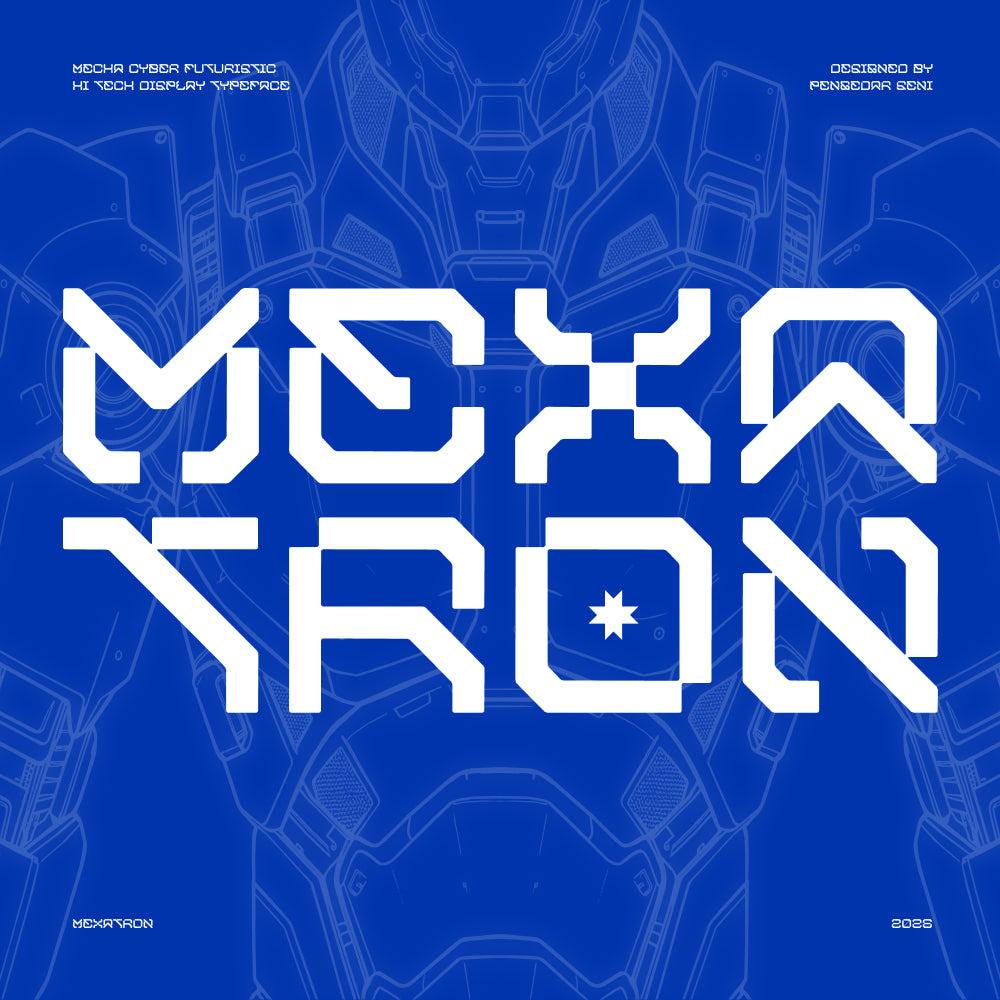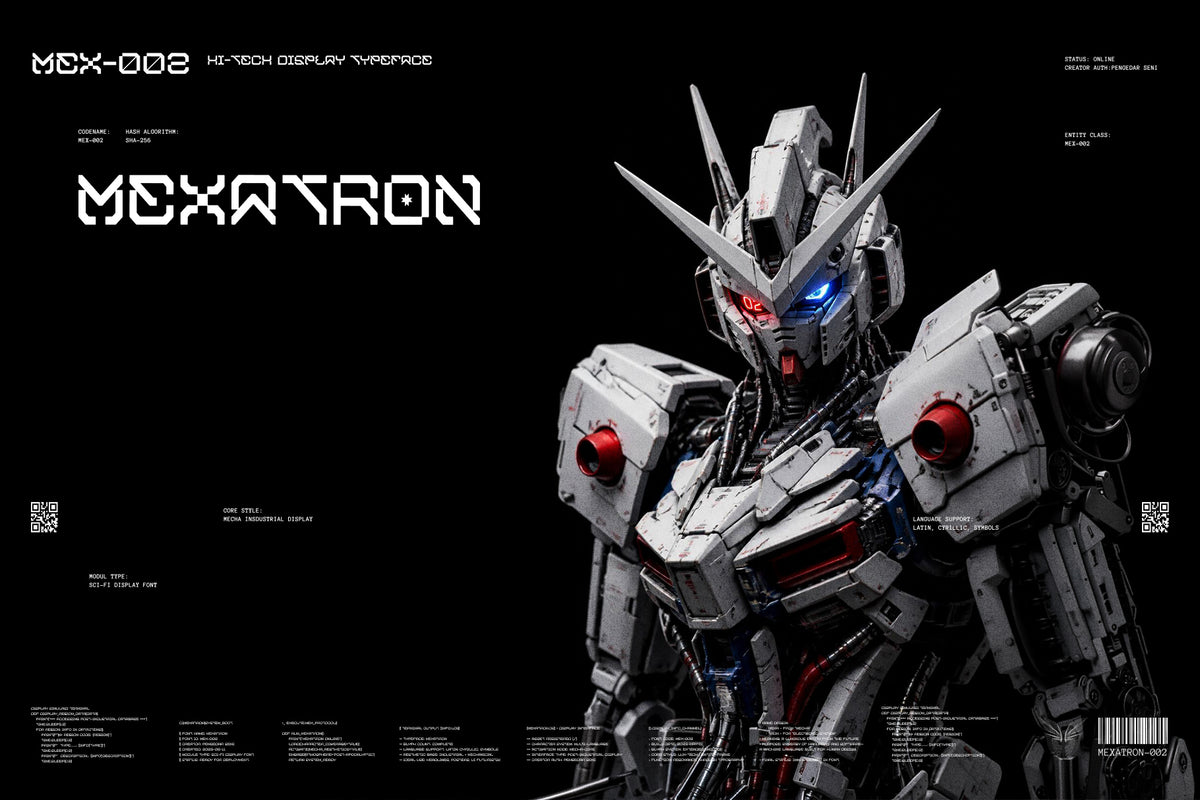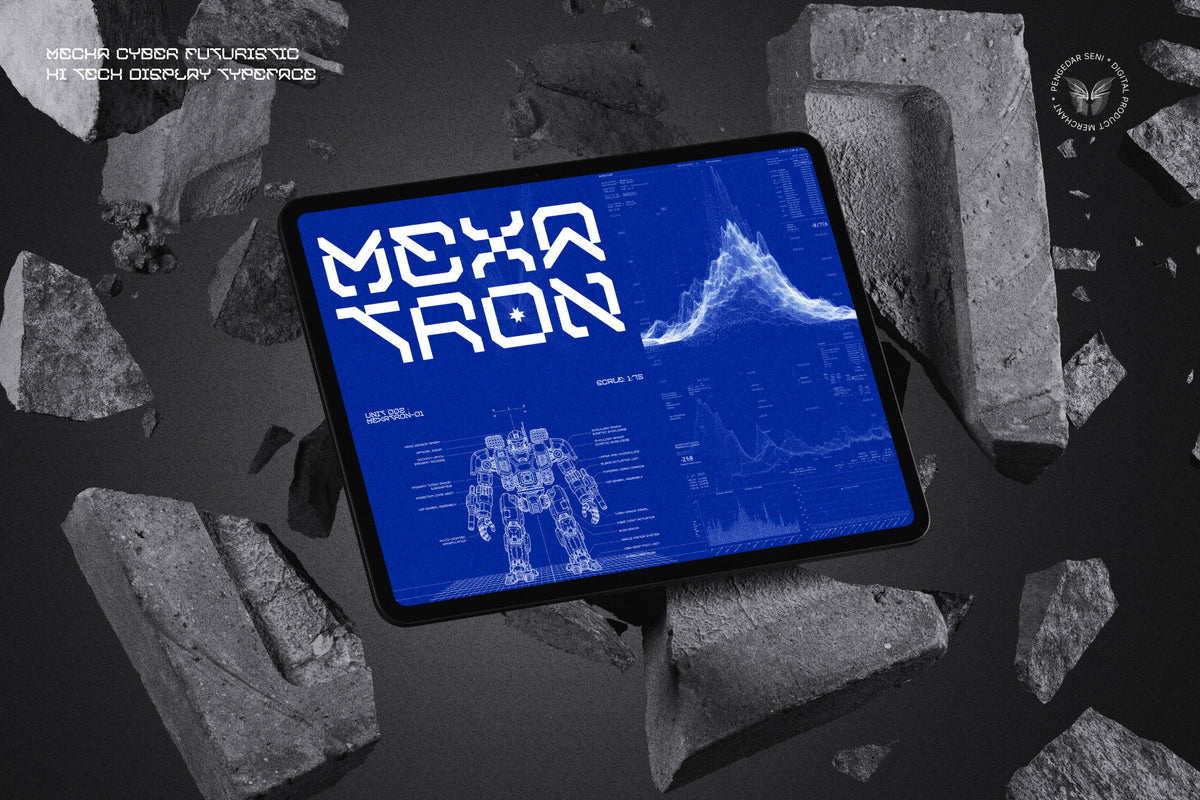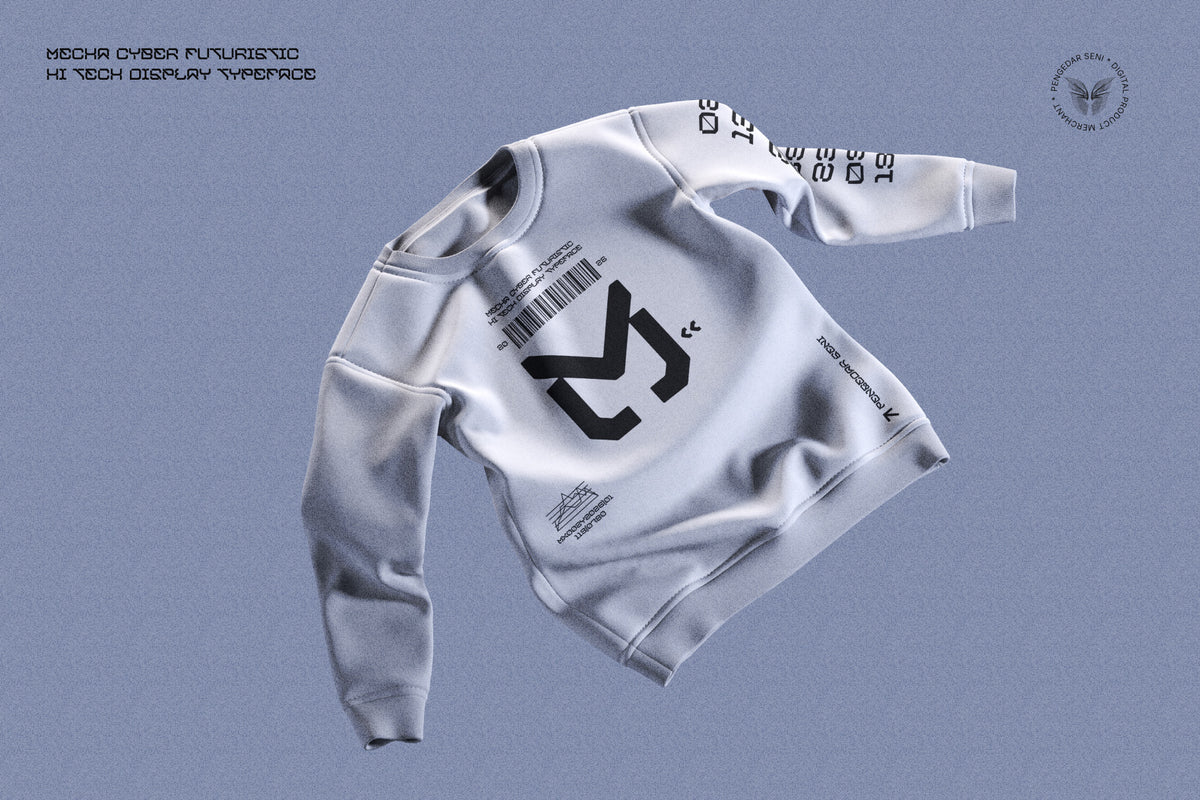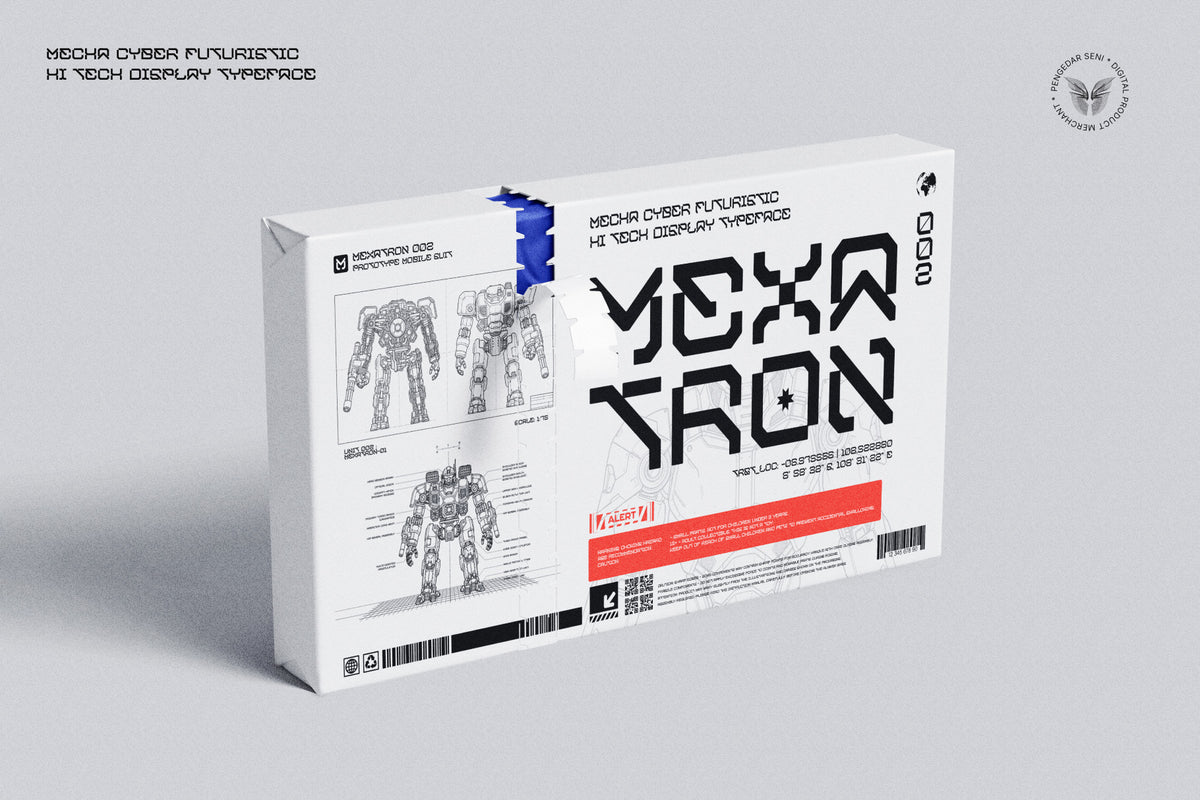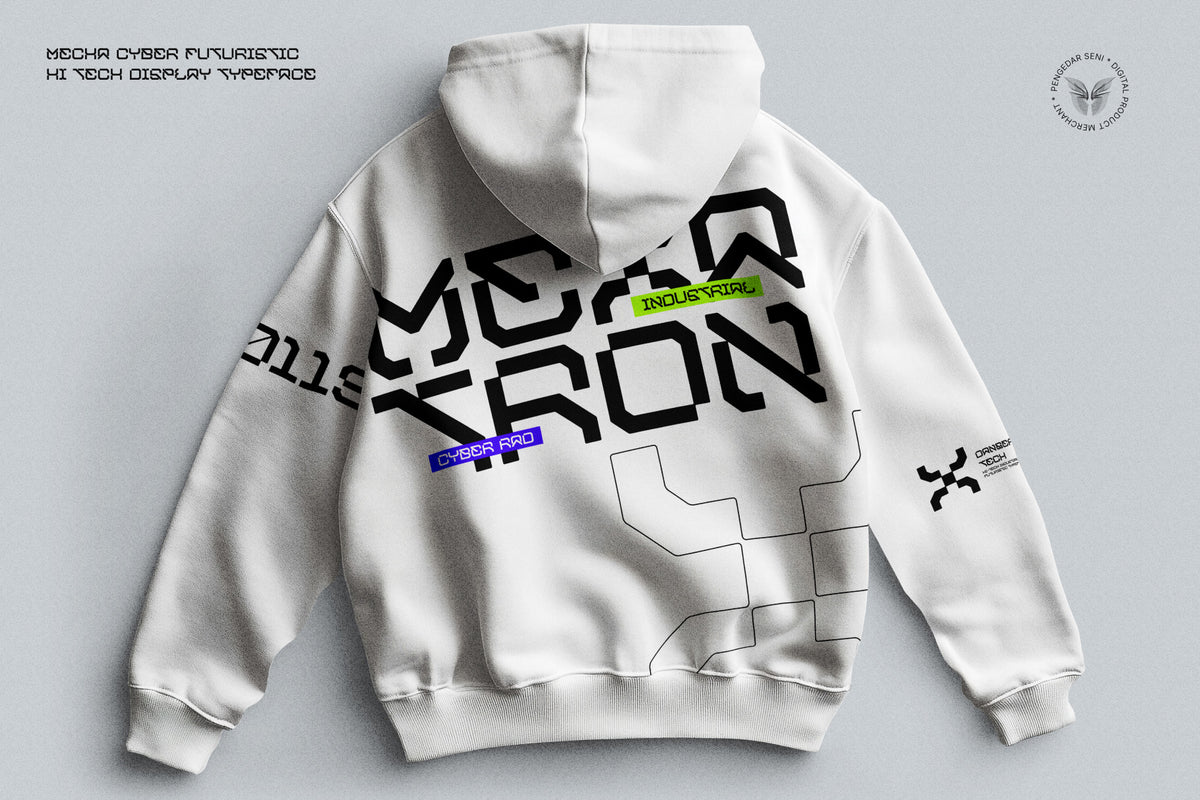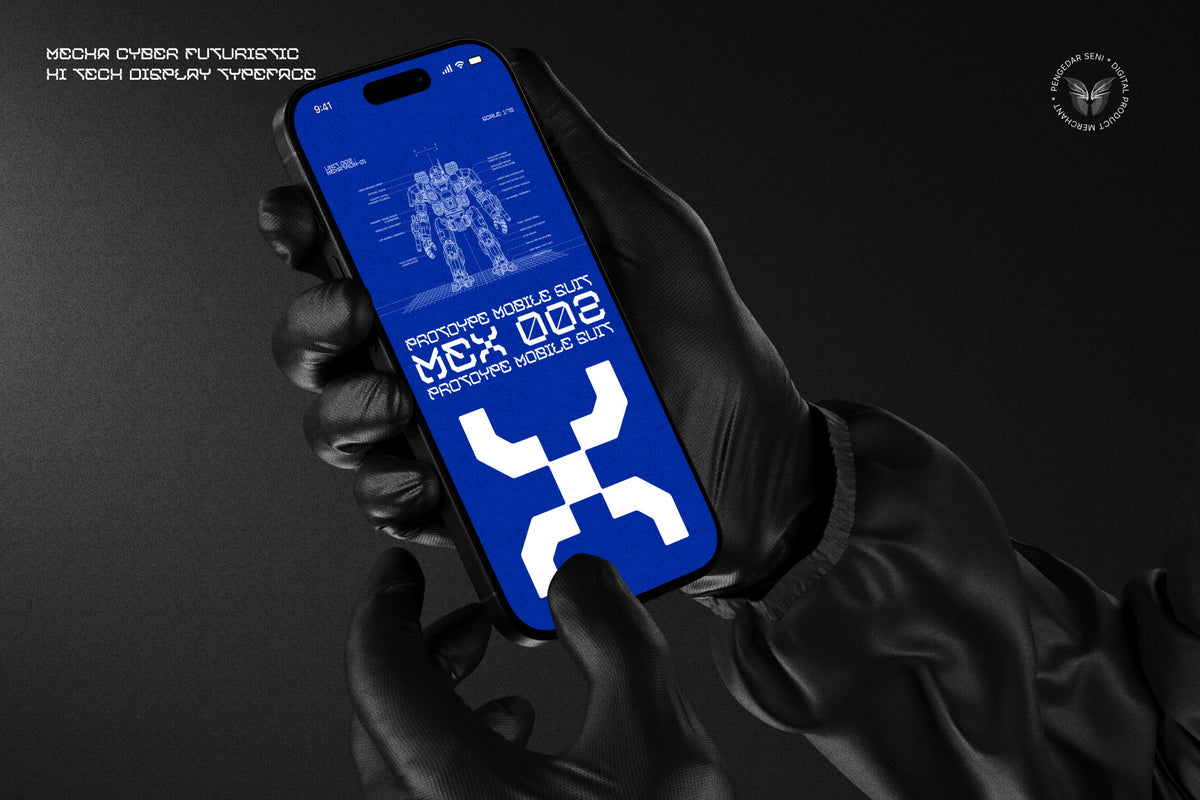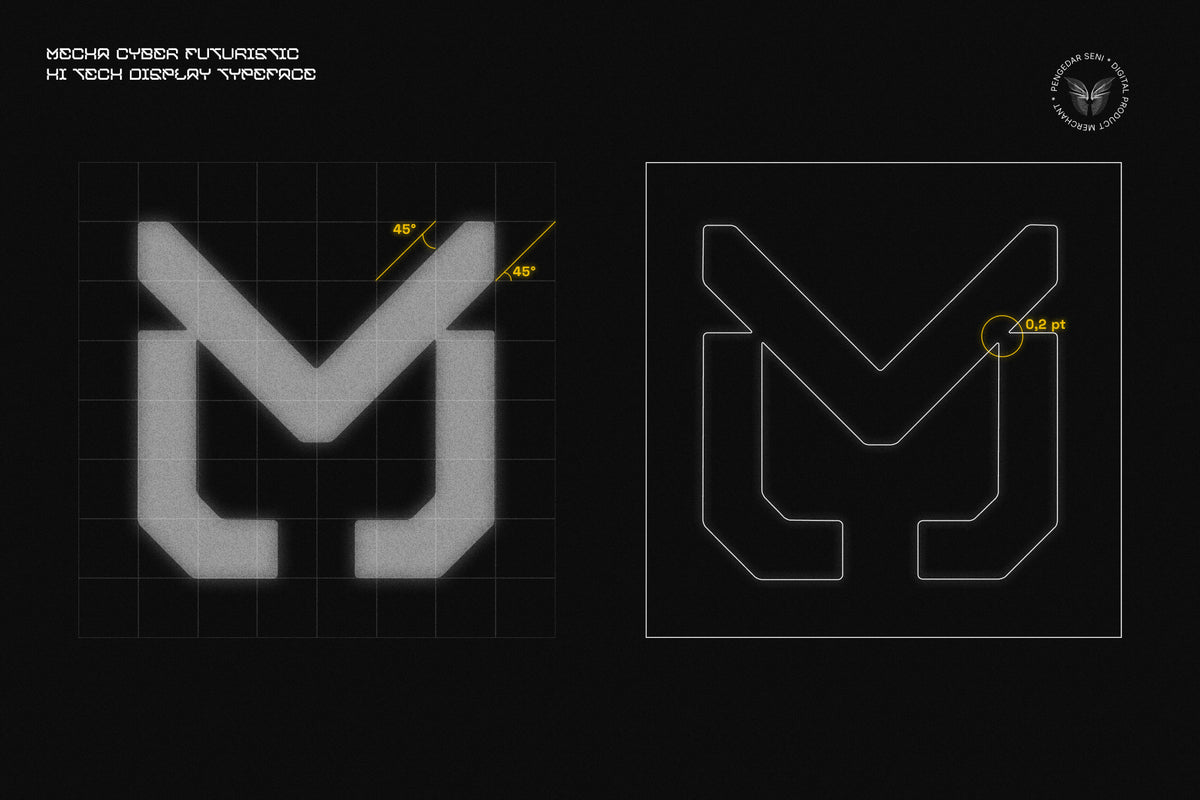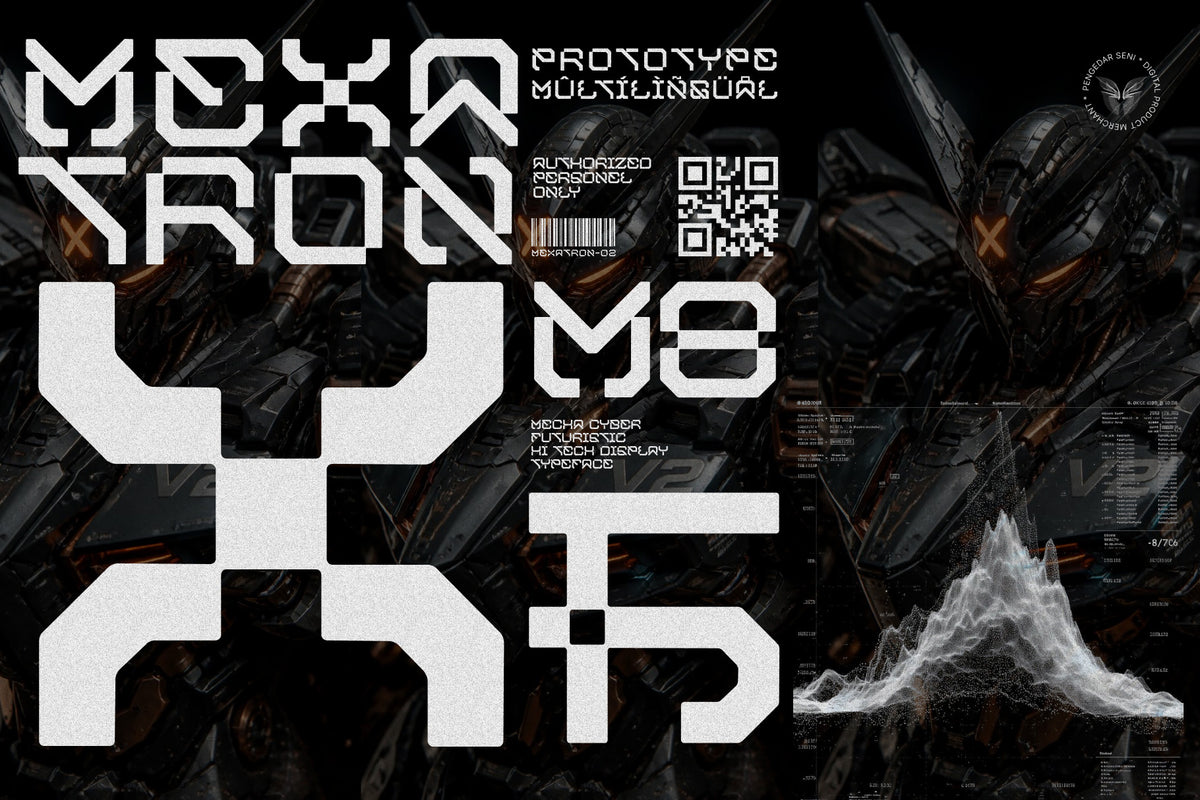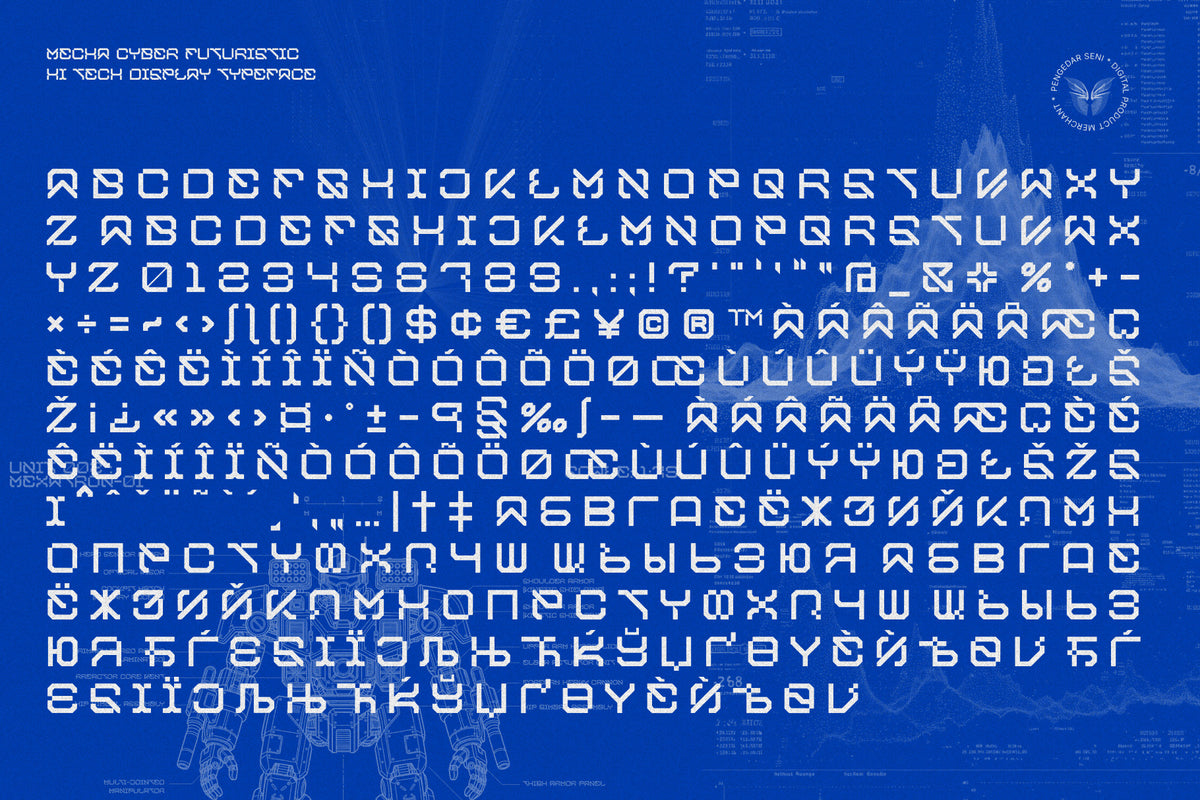
Mexatron - Sci-Fi Display Font
Mexatron – Sci-Fi Display Font
Forged from steel and code. The ultimate typographic mobile suit.
MEXATRON is a heavy-duty, cyber-futuristic display typeface engineered for the next generation of visual communication. Inspired by mecha anime, advanced robotics, and dystopian industrial aesthetics, this font acts as ultimate typographic armor.
The Philosophy Behind MEXATRON
⚙️ Mexa (Mecha/Mechanical) – Represents raw physical power and heavy machinery.
⚡ Tron (Electronic System) – Symbolizes the digital core, glowing UI, and circuitry.
Technical Precision: 45° Angles & Fluid Bridges Built on a rigid geometric grid with signature 45-degree angle cuts mimicking robot armor. It features a fluid bridge system—mathematically calculated smooth joints that simulate mechanical hydraulics for a polished tech finish.
Why Choose MEXATRON?
Extensive Multilingual Support: Includes Basic Latin, Extended Latin, and comprehensive Cyrillic glyphs.
Mecha Industrial DNA: Perfect for sci-fi blueprints, HUD interfaces, and mechanical schematics.
Streetwear Ready: Ideal for tech-wear branding, cyberpunk apparel, and Y2K industrial designs.
Striking Alternates: Unique character constructions resembling classified military insignias.
Perfect For: Mecha anime titles, sci-fi posters, synthwave art, tech-wear lines, and gaming UI/UX.
Mexatron is a sci-fi display font built on a geometric grid with 45-degree angle cuts and a fluid bridge joint system. It includes Basic Latin, Extended Latin, and Cyrillic glyphs, along with alternate character sets.